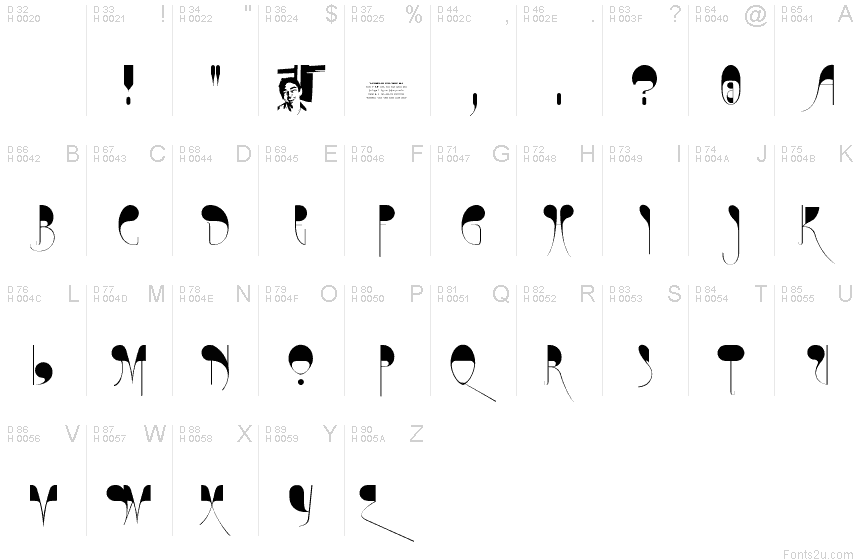
CHASE ZEN PARIS
This is my Art Deco / Art Nouveau font. it's only upper case. again it's dedicated to my nephew and his beloved friends who stay by his side.